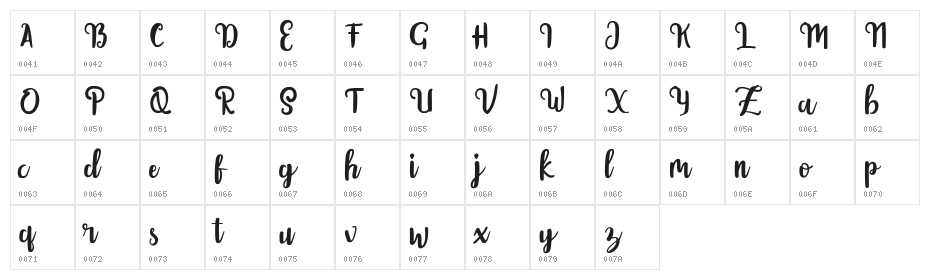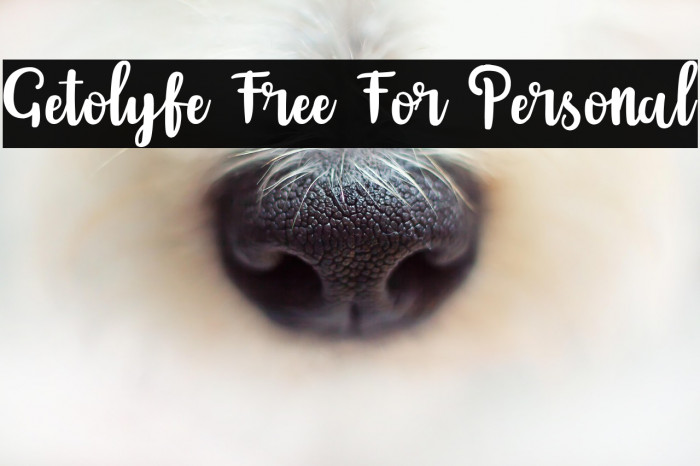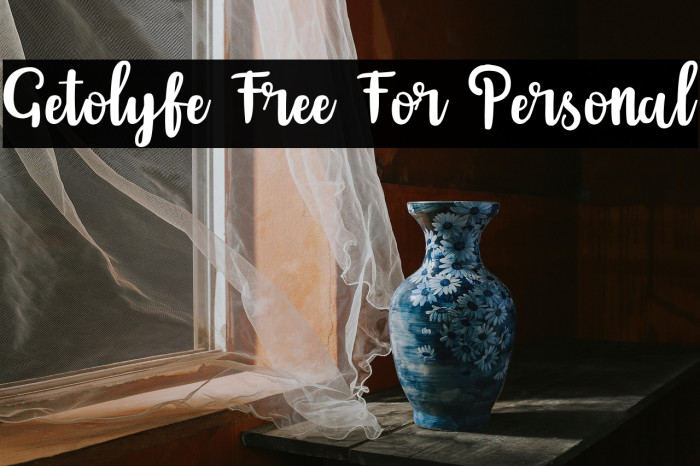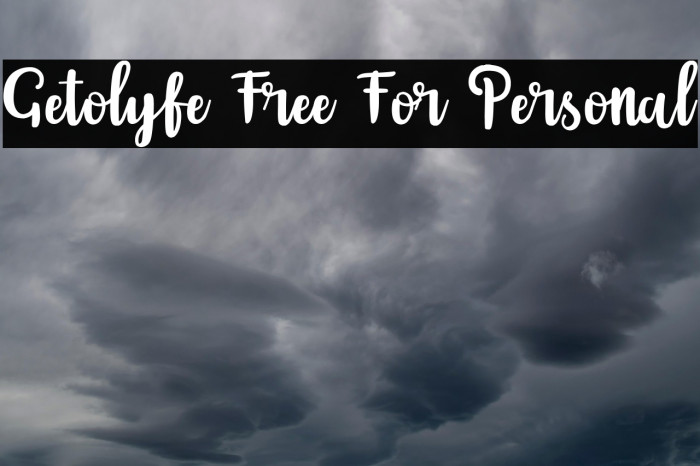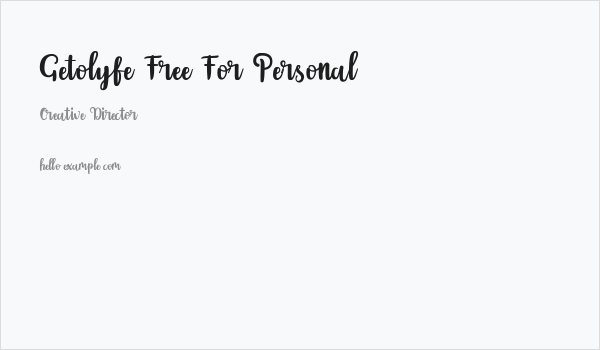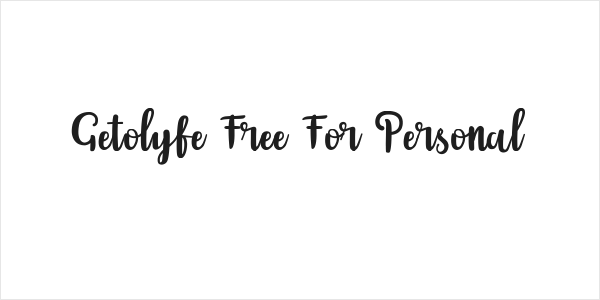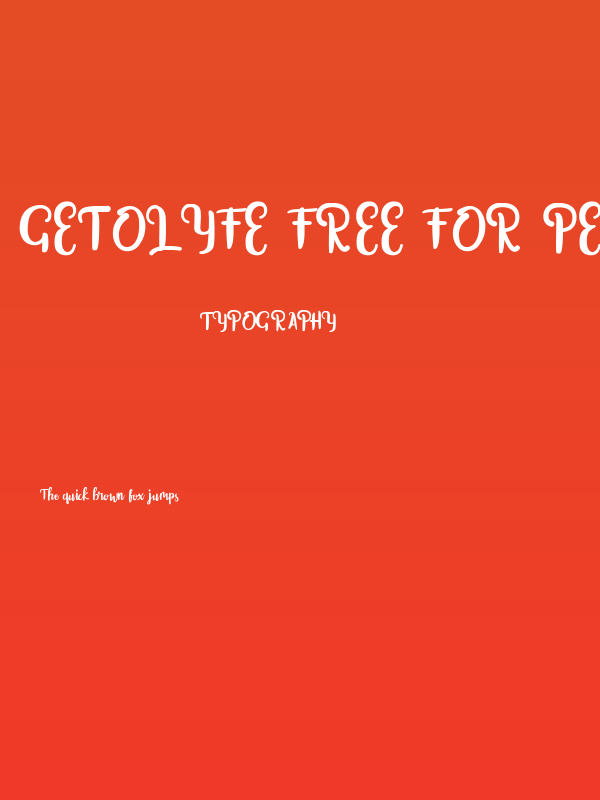
Getolyfe Free For Personal Font
Getolyfe Free For Personal Description
This font features a playful and bold script style with a handwritten feel. The characters are rounded and have a smooth flow, giving them a casual and friendly appearance. The uppercase letters are consistent in height, while the lowercase letters exhibit a slight slant, enhancing the dynamic look. The strokes are thick, providing a strong presence, and the overall design is cohesive, making it suitable for eye-catching designs. The font's whimsical nature makes it ideal for creative projects that require a touch of personality.
Proposed ProjectsIdeal for greeting cards, invitations, posters, and branding projects that require a personal touch.